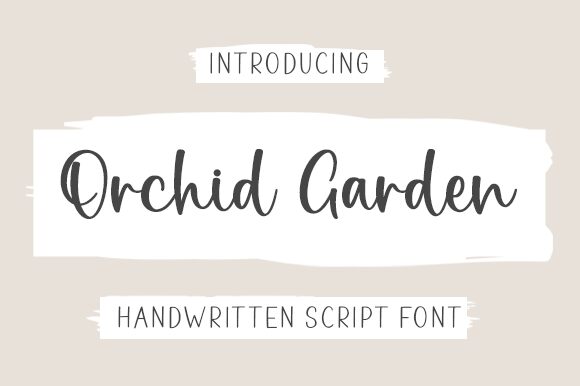
Orchid Garden
Orchid Garden, the beautiful and dainty handwritten font designed by Graphix Line Studio. Its semi-light weight adds a touch of elegance to any project, whether it be an invitation to a lavish wedding or a cozy café menu. This font is perfect for personal blogs, social media posts, and creative projects that require a charming and feminine touch. The delicate strokes captivate the eye and create a warm ambiance, making Orchid Garden ideal for any design that needs to convey friendliness and approachability. Embrace your creativity with Orchid Garden - the perfect font for all things pretty!